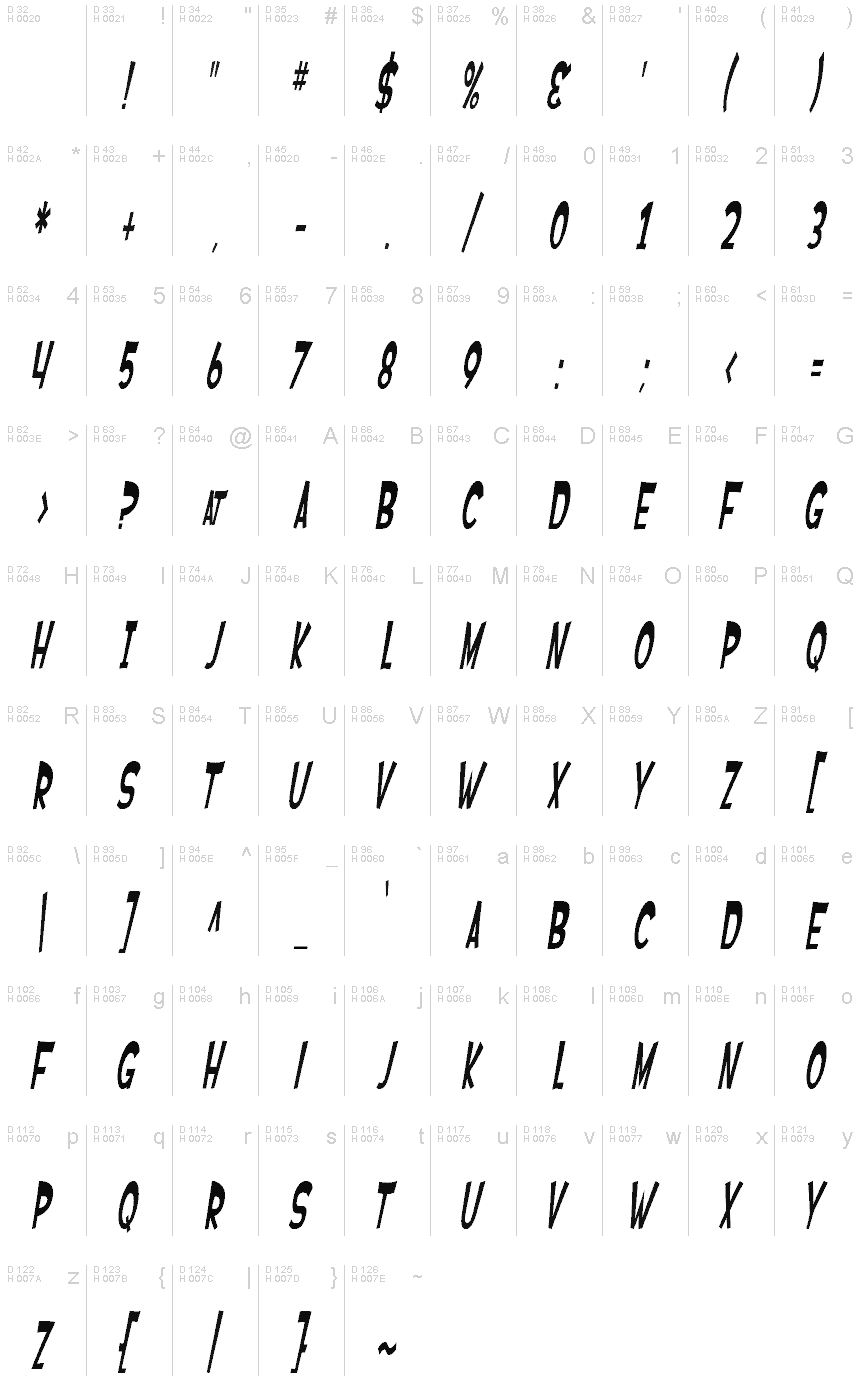
SF Ferretopia Oblique
SF Ferretopia Oblique leaps off the page with an animated flair that is as playful as it is impactful. Designed by ShyFonts Type Foundry, this member of the SF Ferretopia family brings a whimsical comic style to the table, effortlessly infusing personality into every character. Its extra-condensed width adds a dynamic rhythm to text, making it an excellent choice for titles and headers that demand attention while maintaining an air of lightheartedness.
The oblique stance introduces a sense of motion and casualness, suggesting a laid-back vibe that's perfect for informal or creative endeavors. Whether it's gracing the pages of a graphic novel or adding character to branding materials, SF Ferretopia Oblique stands out as a versatile display font with charm in spades. Its distinctive aesthetic ensures that any project it touches will be imbued with energy and originality.